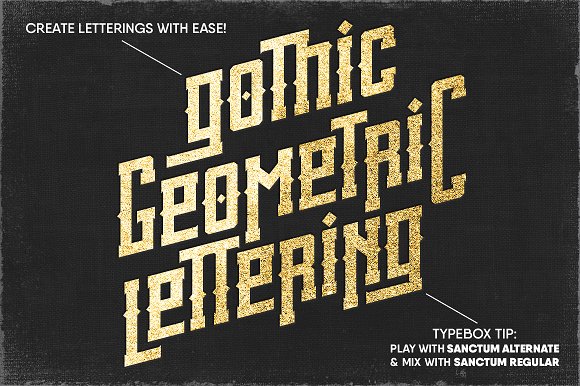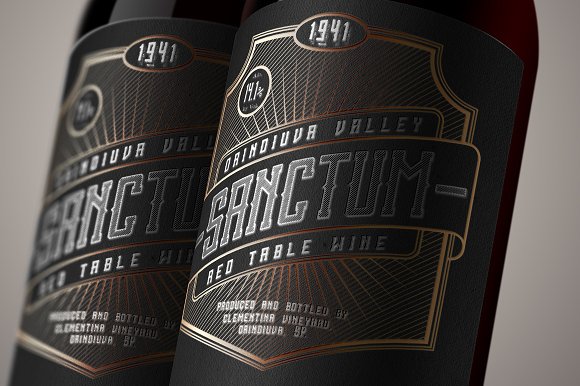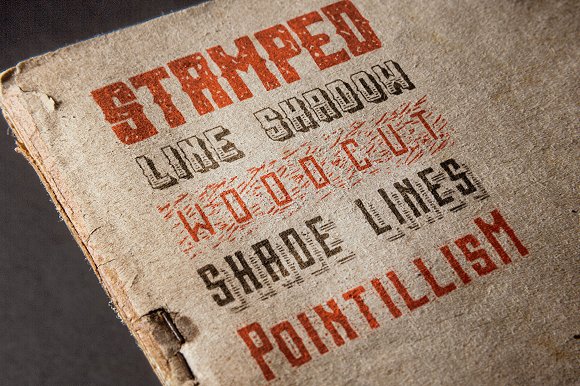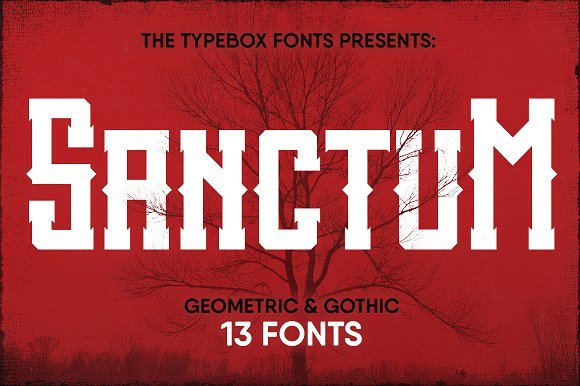
Introduction to Sanctum Inky Collection Font
Sanctum is a geometric neo-gothic font family that is great for labels, packaging & posters.
The Sanctum family consists out of 13 unique fonts Each font has it’s own special features that makes this a very versatile family which is great for mixing and matching.